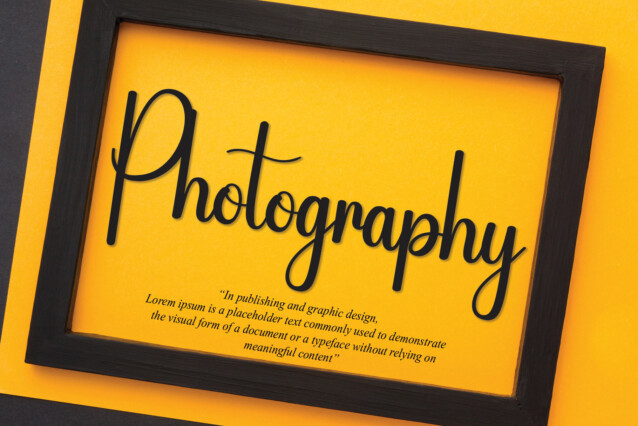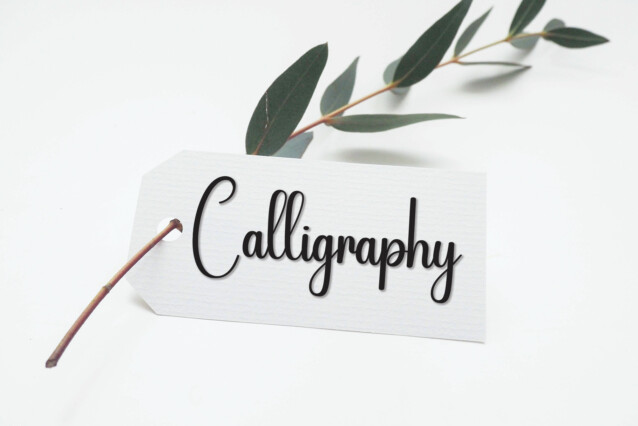
Activity Saturday Script Font
Activity Saturday Script Font is a flowing handwritten font, described by an elegant touch, perfect for your favorite projects. Fall in love with its incredibly distinct and timeless style and use it to create spectacular designs!